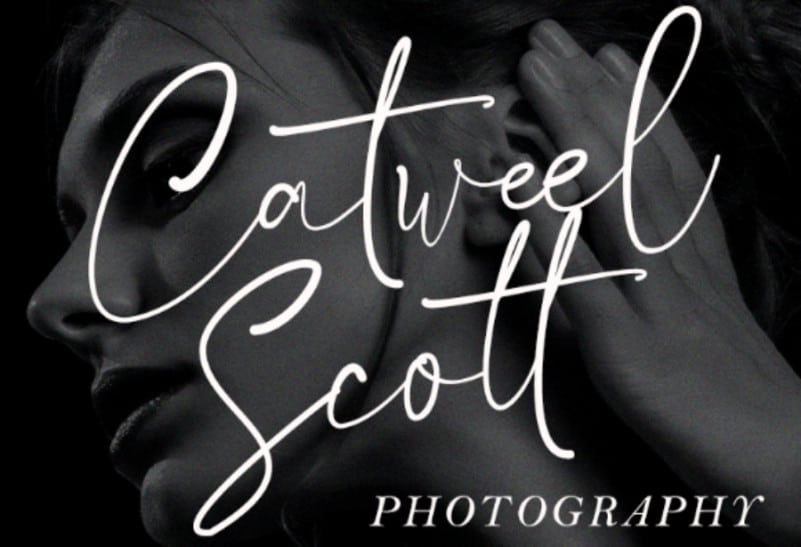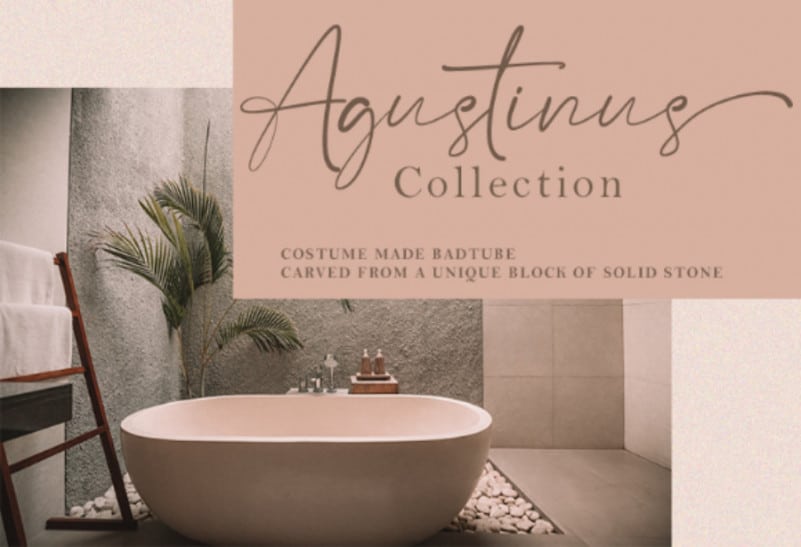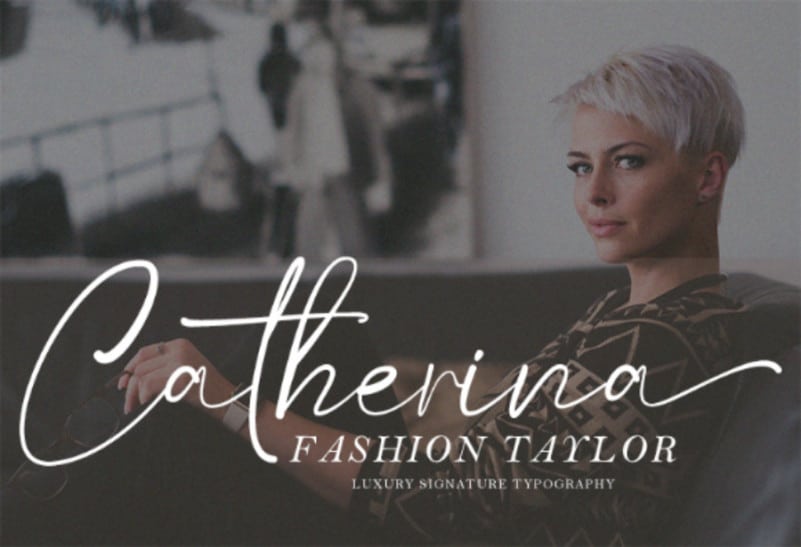
Satteck A Luxury Calligraphy Font
Satteck A Luxury Calligraphy Font is a stylish and incredibly elegant script font. It looks stunning on wedding invitations, thank you cards, quotes, greeting cards, logos, business cards and every other design which needs a handwritten touch.